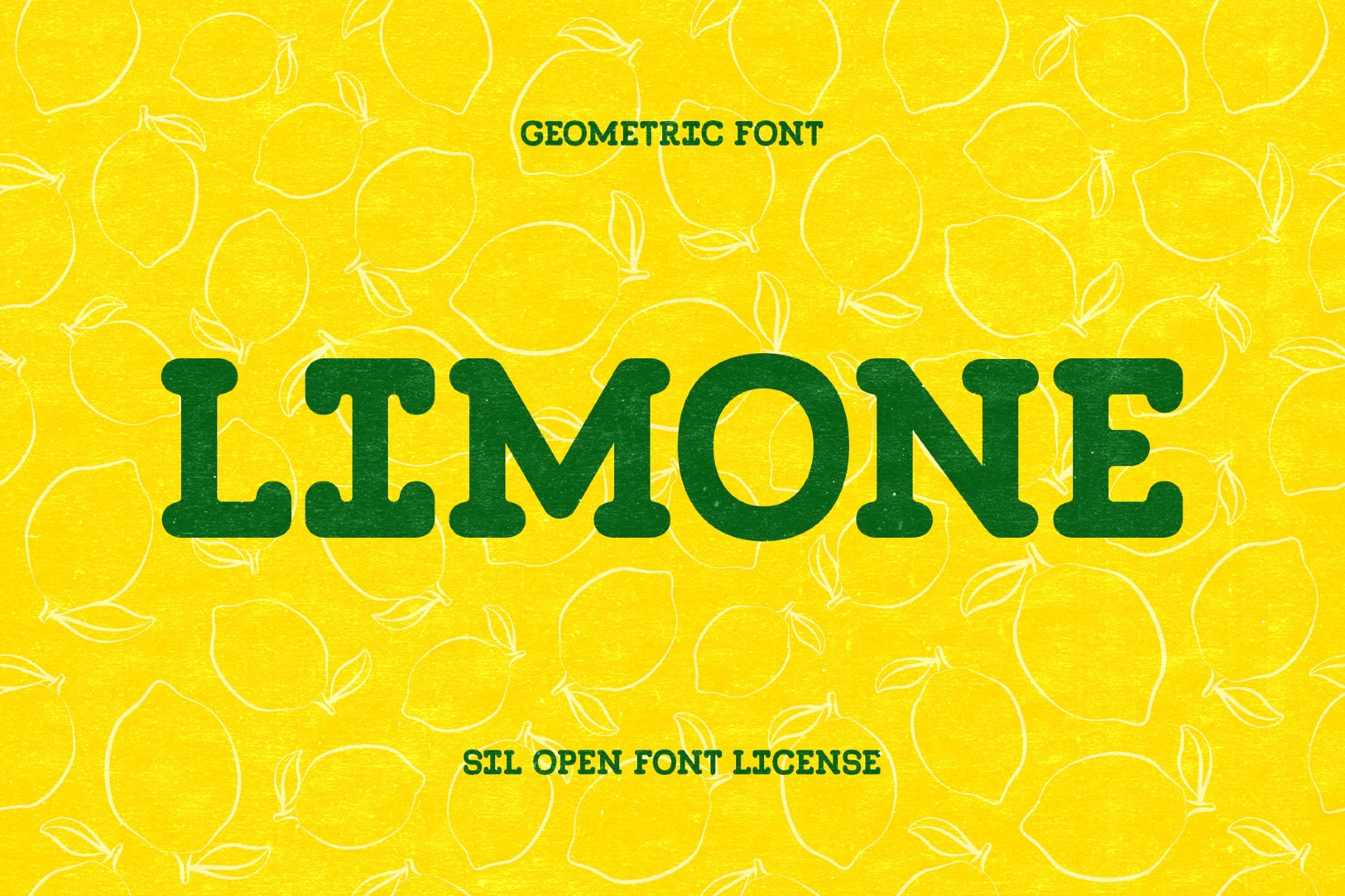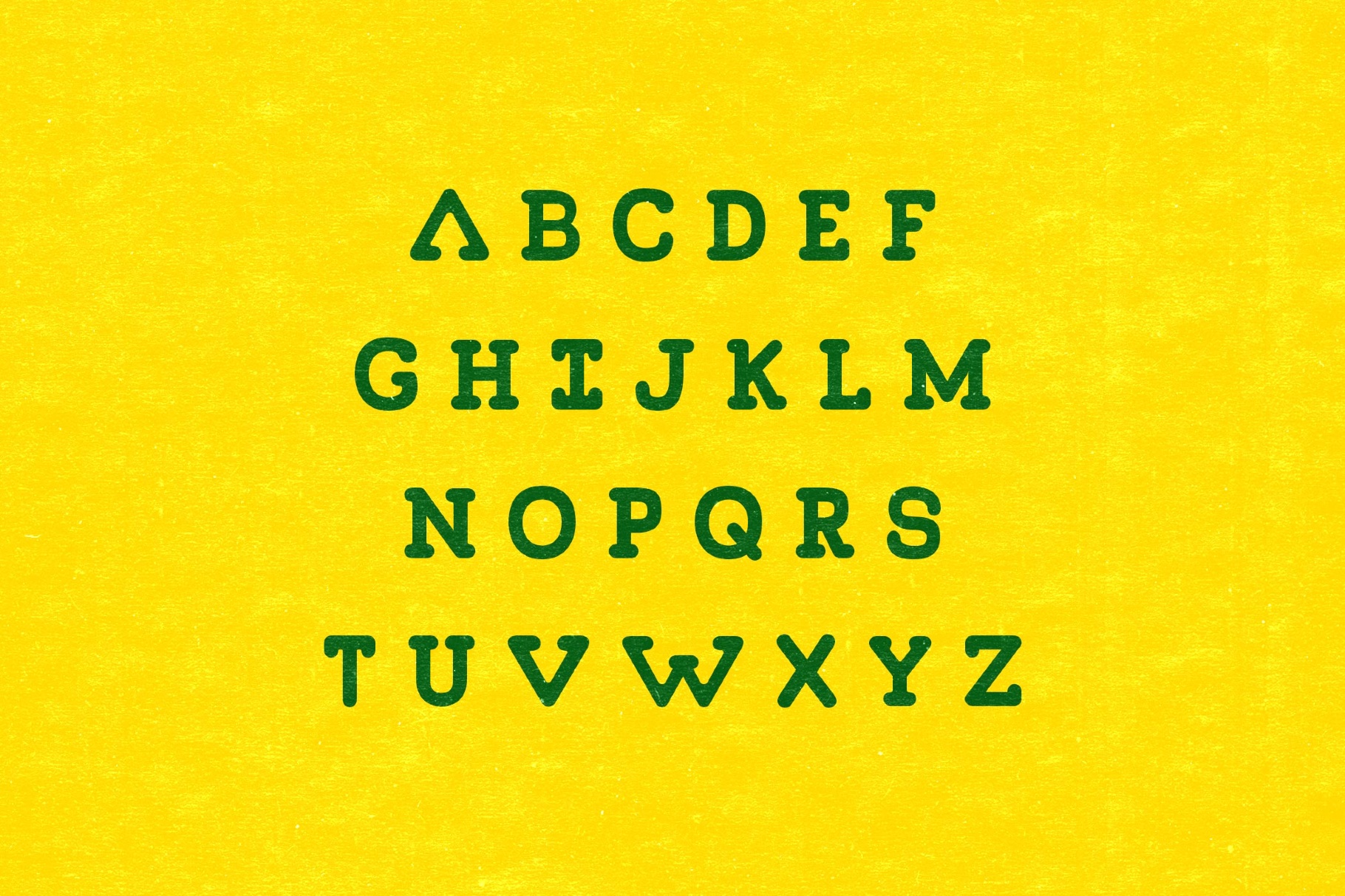
Limone Font
Limone-Regular
Limone has a plump unicase silhouette shaped by geometric logic, yet its rounded weight and juicy rhythm recall 1970s food labels, children’s paperbacks, and cheerful Mediterranean packaging. It works for brand marks, poster titles, café menus, packaging, editorial openers, social graphics and book covers.